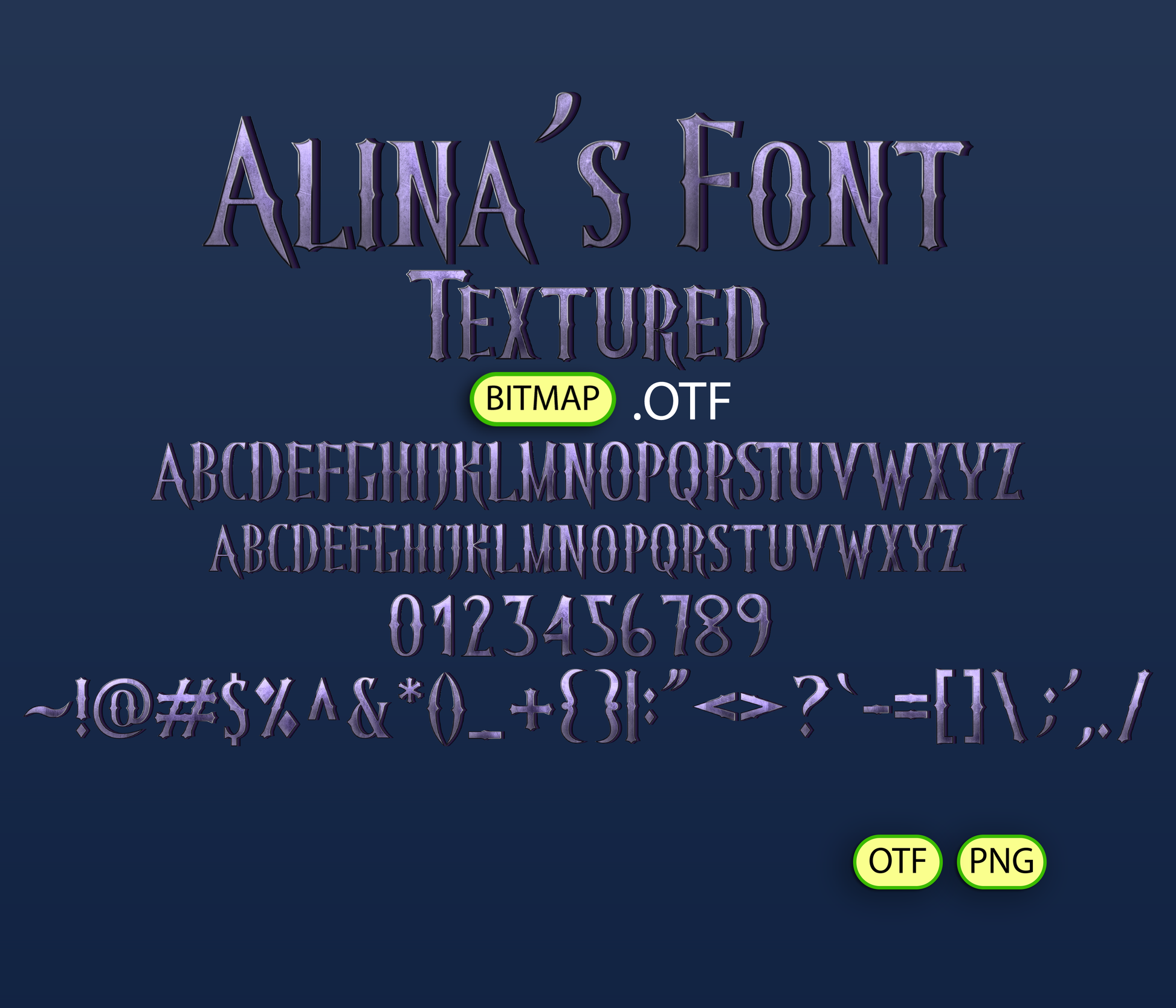
Enigmatic Waltz Font Textured
Enigmatic Waltz Font: A Gothic Digital Font Inspired by a Mysterious Young Heroine
For those with an eye for the eerie and elegant, the Enigmatic Waltz Font is a gothic digital gem, drawing its mesmerizing inspiration from an unforgettable young heroine of a beloved dark comedy series. This font weaves a tale of enigma and sophistication, making it an unparalleled choice for those looking to infuse a dash of the mysterious into their designs.
Whether you're a fan of dark comedies, gothic aesthetics, or simply love unique typography, the Enigmatic Waltz Font offers a world of creative possibilities. Bring a touch of mysterious charm to your designs and let your creativity dance to a gothic rhythm.